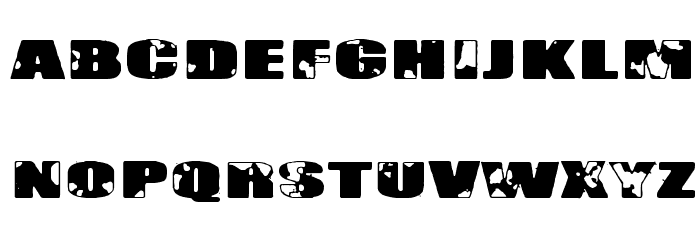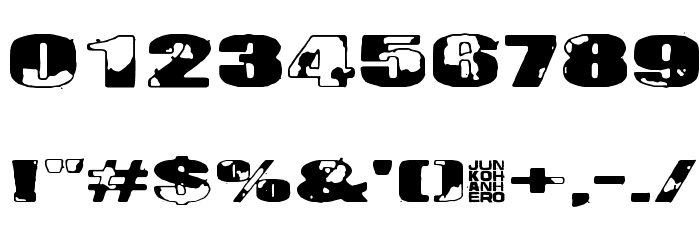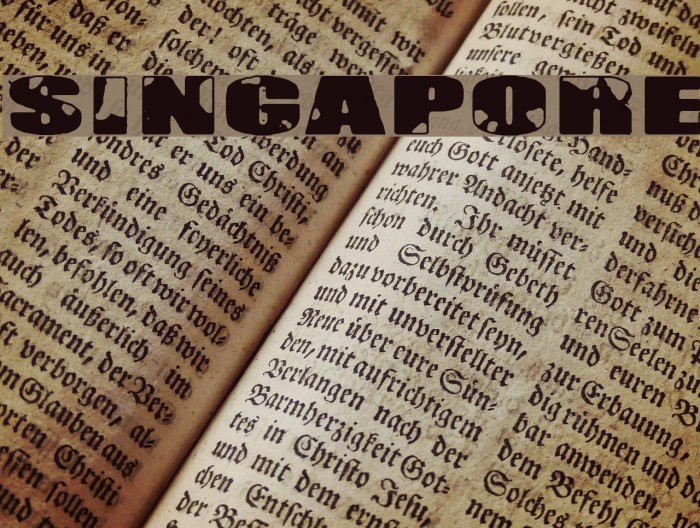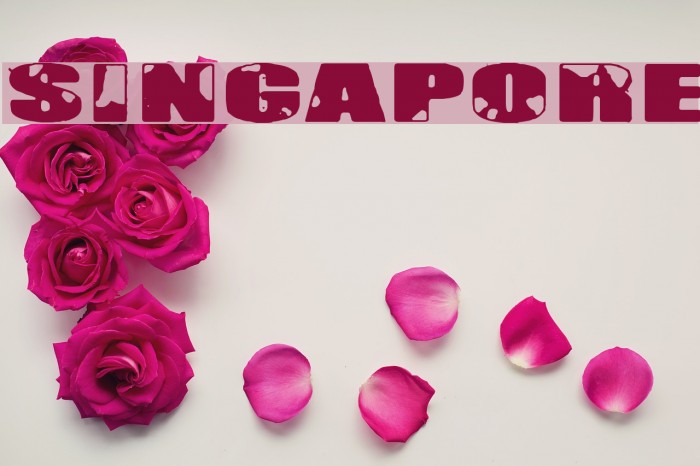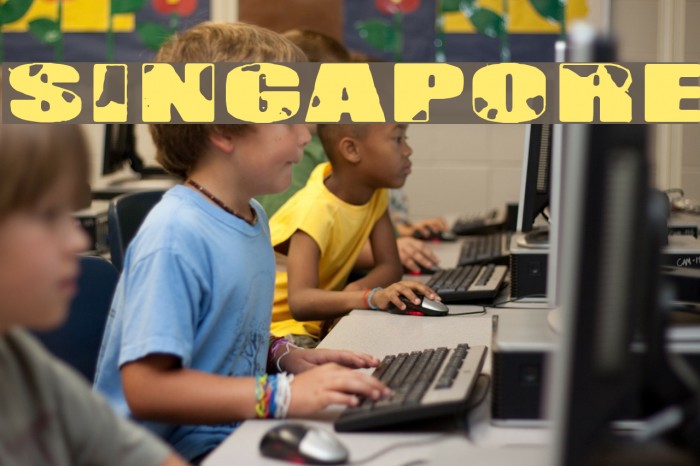
Singapore Font
This font features a bold and distressed style, with a unique grunge effect that gives it a worn and rugged appearance. Each character is heavily stylized, incorporating irregular shapes and rough edges that create a sense of texture and depth. The uppercase and lowercase letters maintain a consistent design, while the numerals and special characters follow the same aesthetic, ensuring a cohesive look across all text. This font is ideal for projects that require a strong, impactful visual presence, such as posters, album covers, or branding materials that aim to convey a sense of edginess or rebellion.
A bold, distressed font with a grunge effect and rugged appearance.
- Proposed Projects: Ideal for posters, album covers, branding materials, and any project needing an edgy, rebellious look.